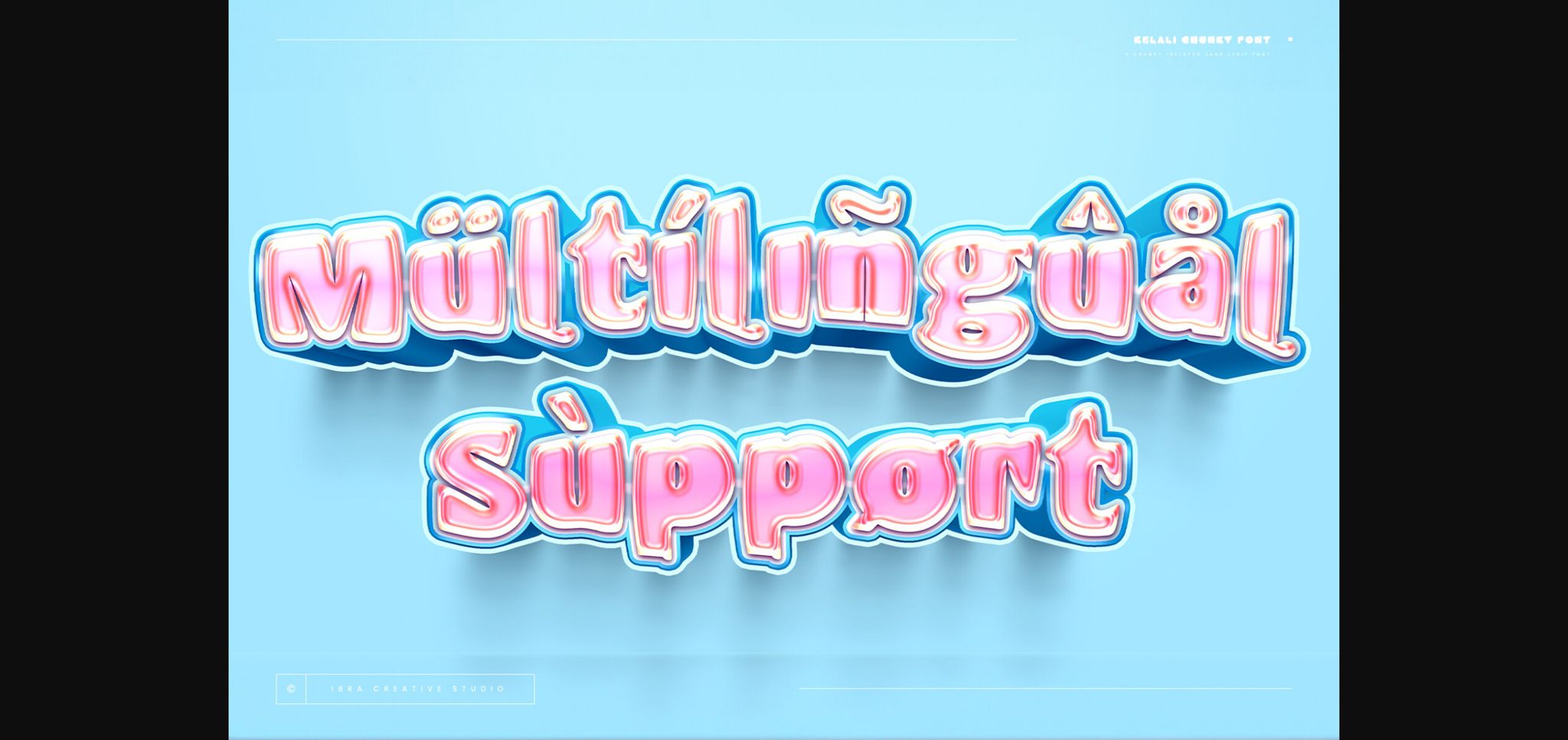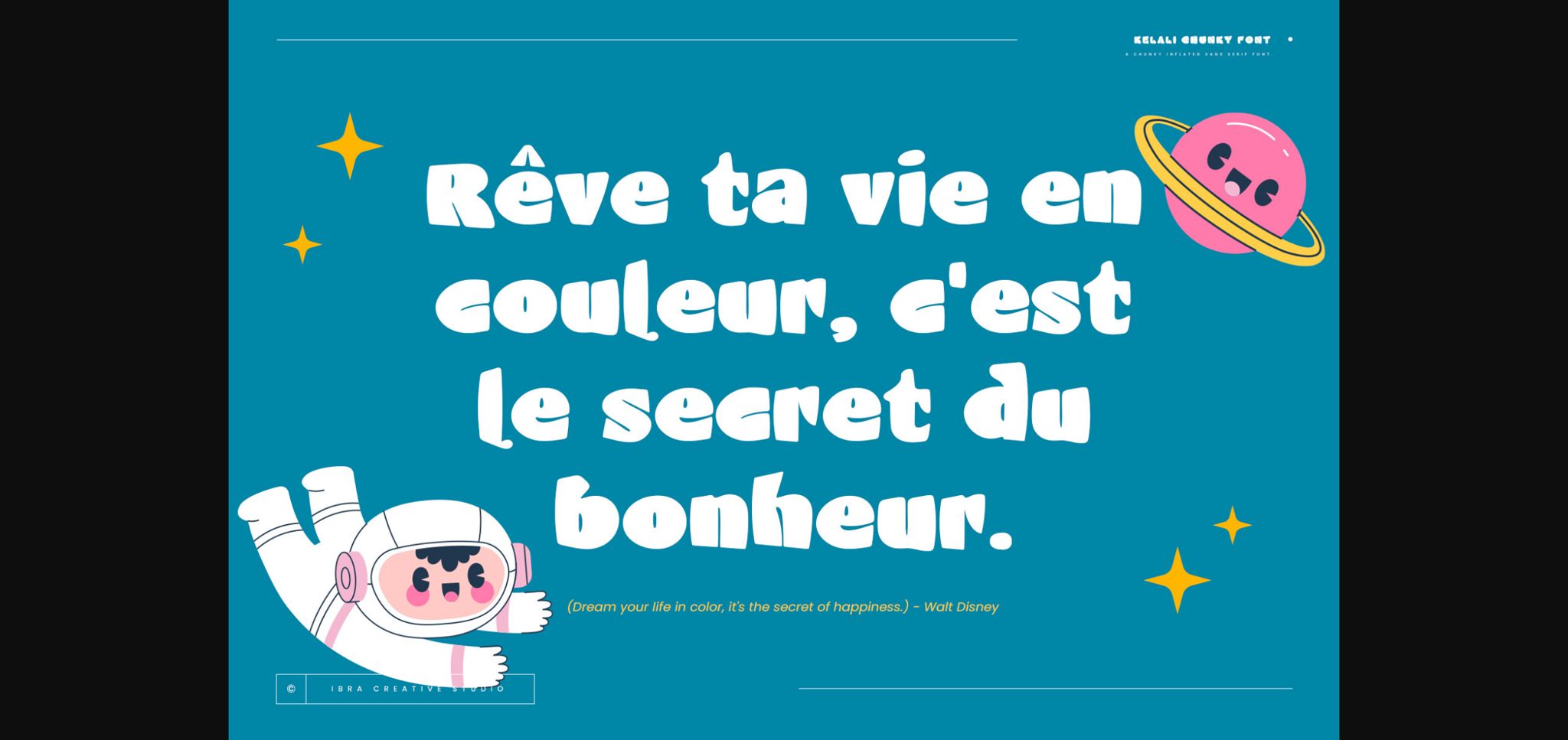
About Kelali Chunky Font
Kelali Chunky is a robust and visually impactful inflated sans-serif font that commands attention with its bold, chunky letterforms. The typeface strikes a perfect balance between modernity and playfulness, featuring generously rounded edges and a substantial weight that adds a touch of friendliness to its otherwise sturdy demeanor. Kelali Chunky’s inflated design provides a distinctive and memorable presence, making it well-suited for headlines, logos, and branding projects where a bold and confident typographic statement is desired.